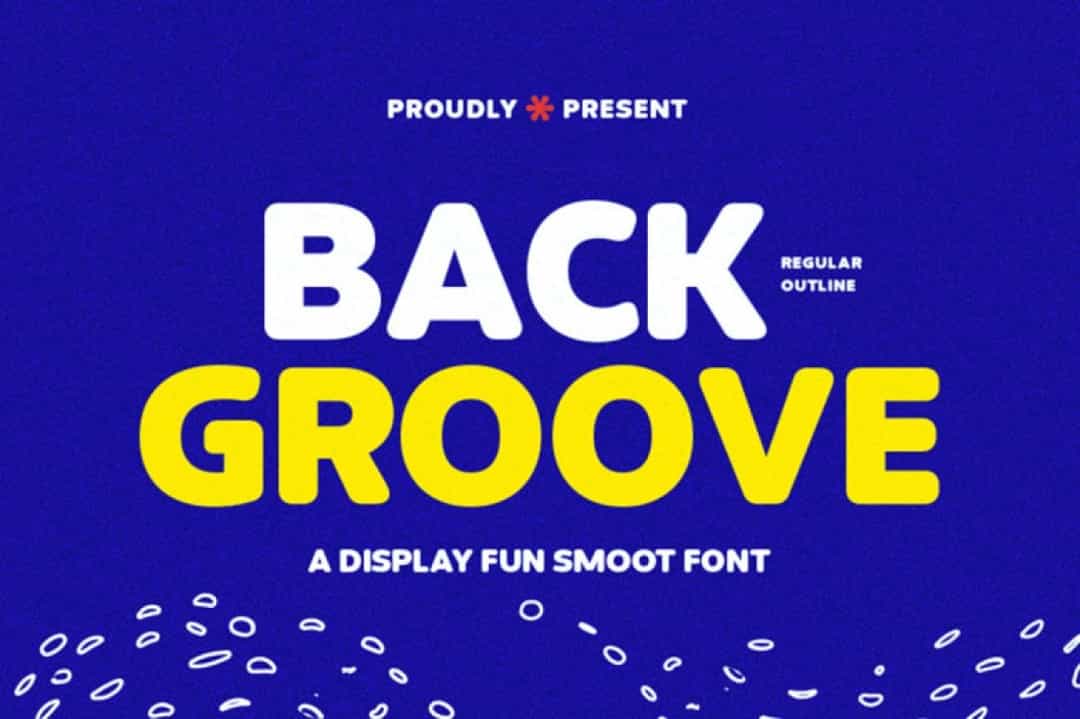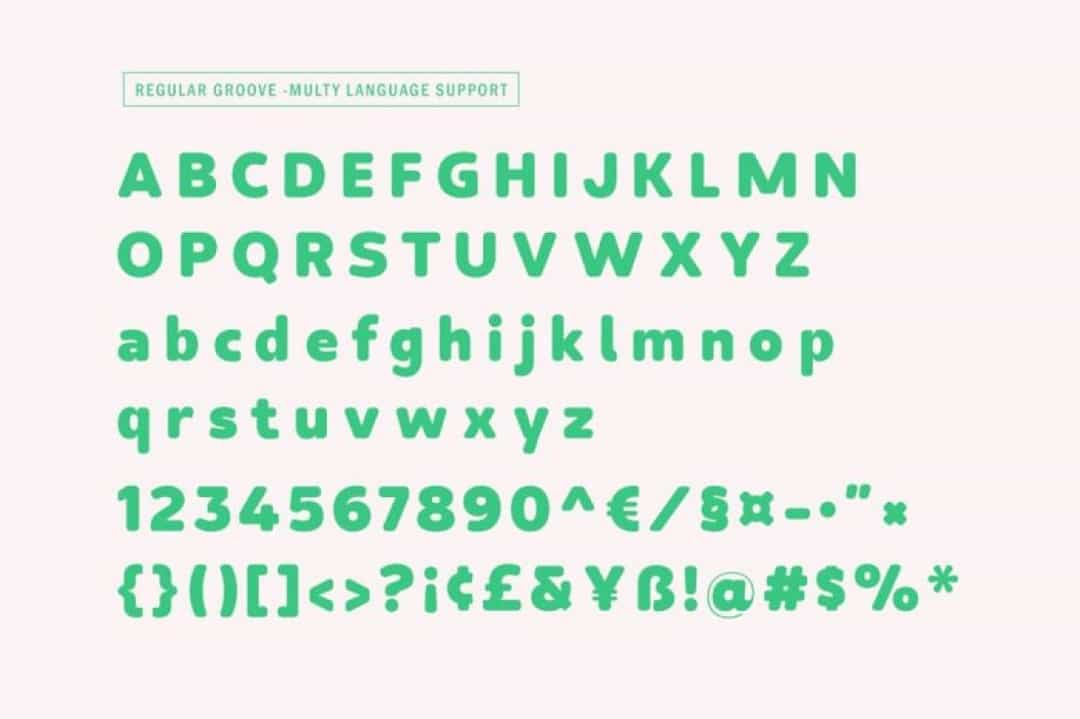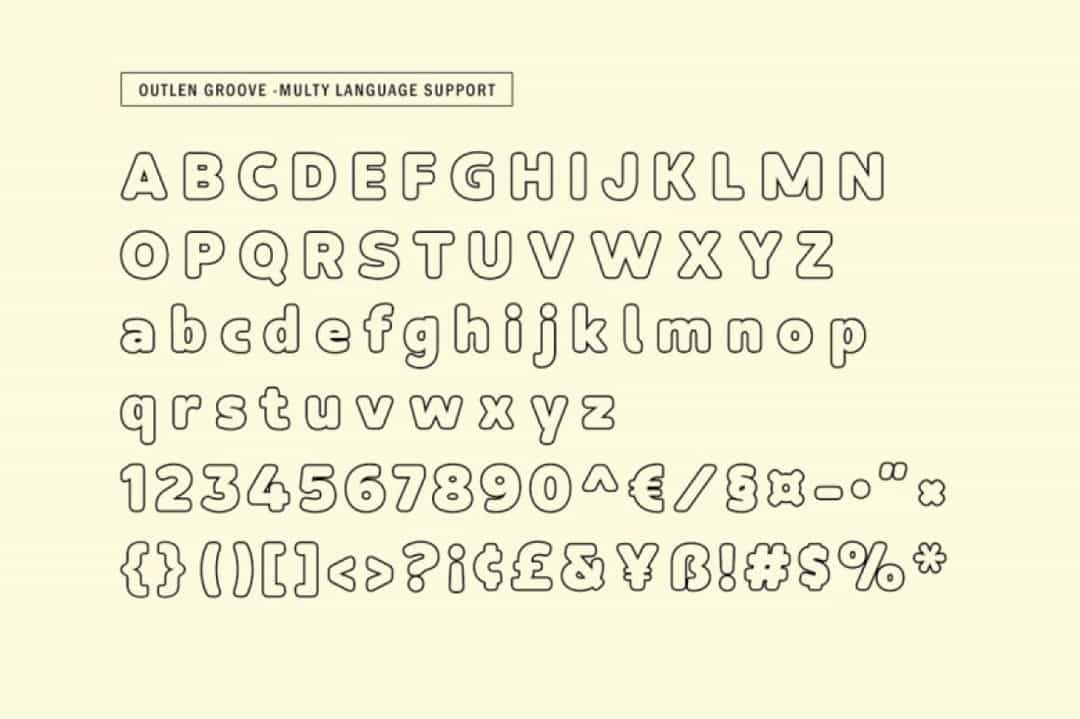
Back Groove is an exquisite combination of style and elegance, released as one of the top releases this year by design house Pentel. Crafted with precise needlepoint accuracy, Back Groove offers simple elegance for use in work projects of any kind; an iconic representation of timeless elegance.